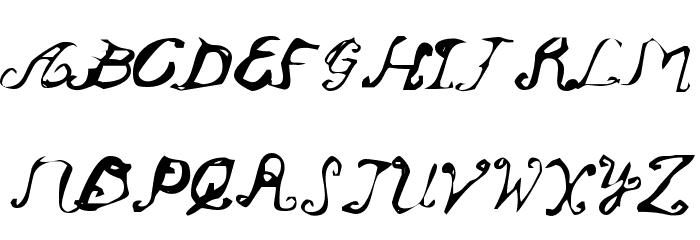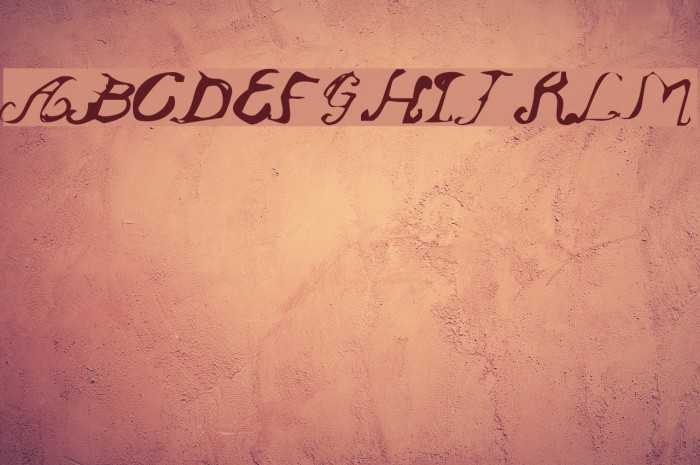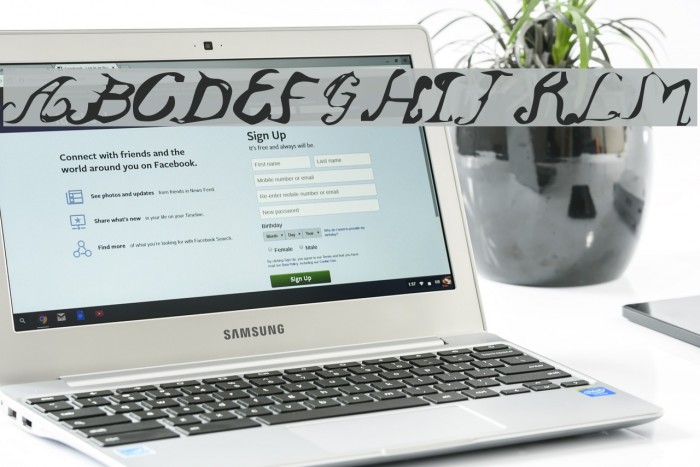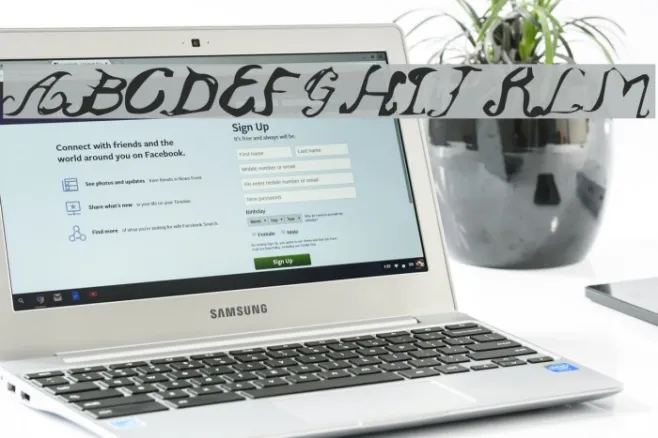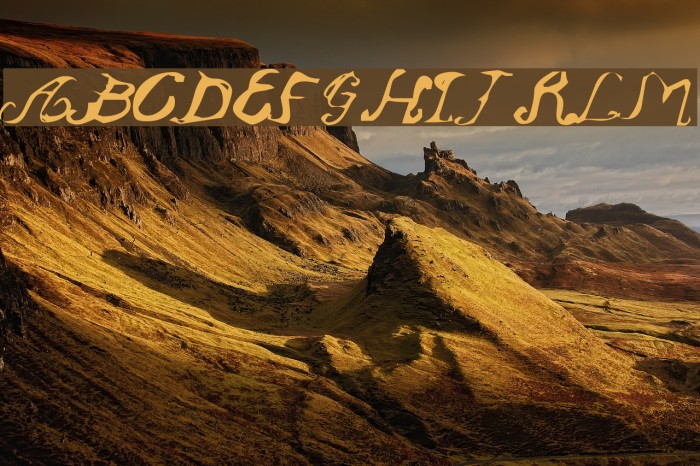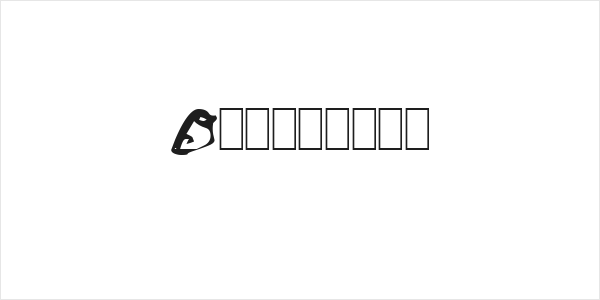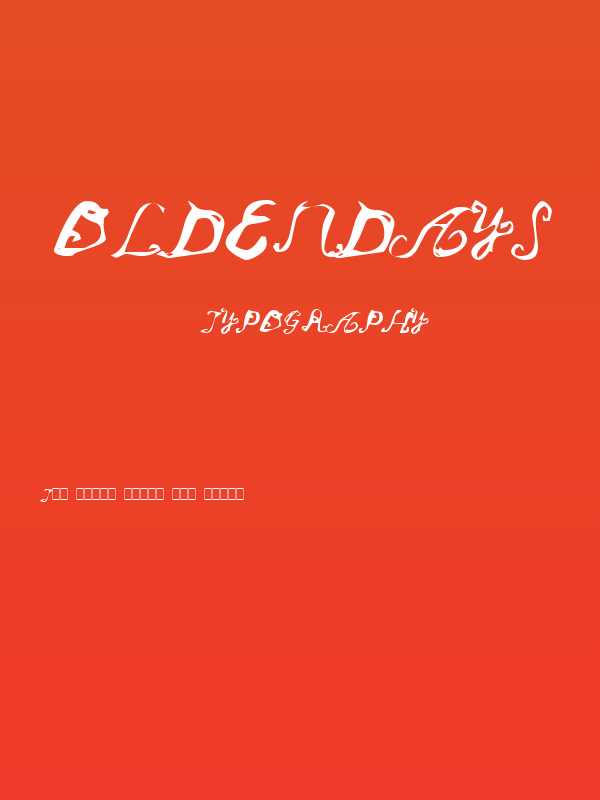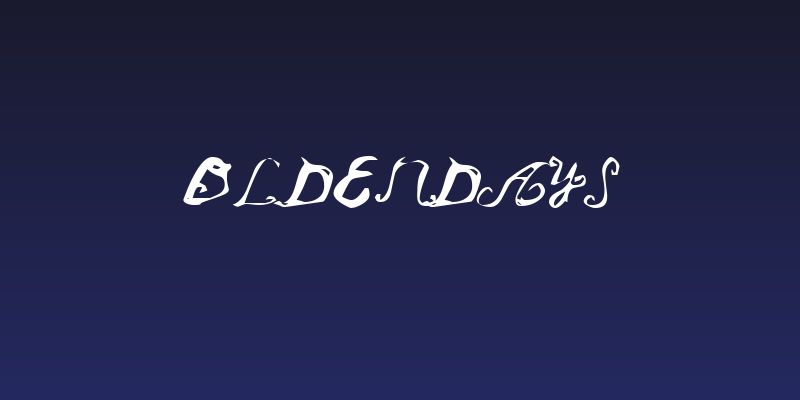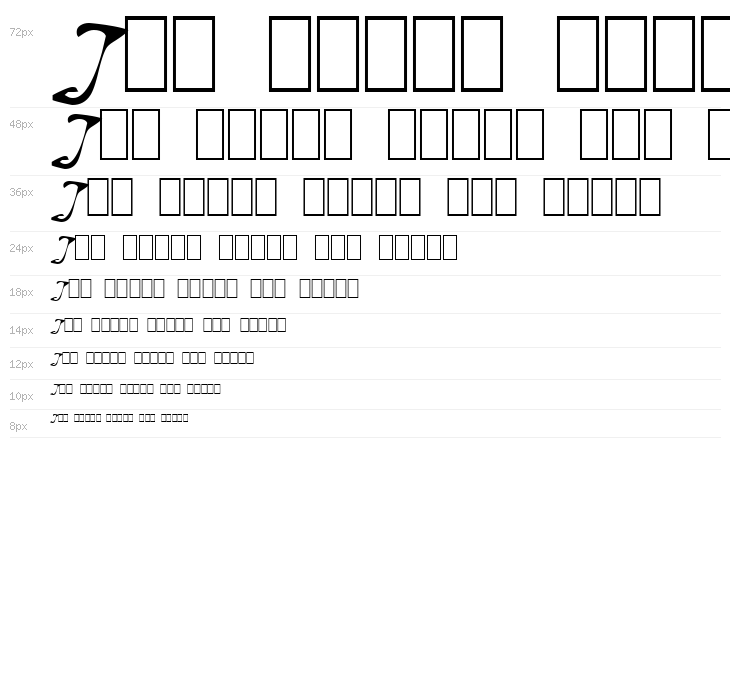
Oldendays Font
This font features an ornate and decorative style, reminiscent of vintage calligraphy. The characters are embellished with intricate swirls and flourishes, giving them a unique and artistic appearance. The uppercase letters are particularly elaborate, with extended strokes and loops that add a sense of elegance and sophistication. The lowercase letters maintain a consistent style, with a slightly more restrained design that complements the uppercase characters. The numbers and special characters follow the same decorative theme, ensuring a cohesive look across all glyphs. This font is ideal for projects that require a touch of nostalgia and classic charm.
| Use Case | Headlines, Logos, Decorative text |
| Proposed Projects | Ideal for wedding invitations, vintage-themed posters, book covers, and branding materials that require a classic and elegant touch. |